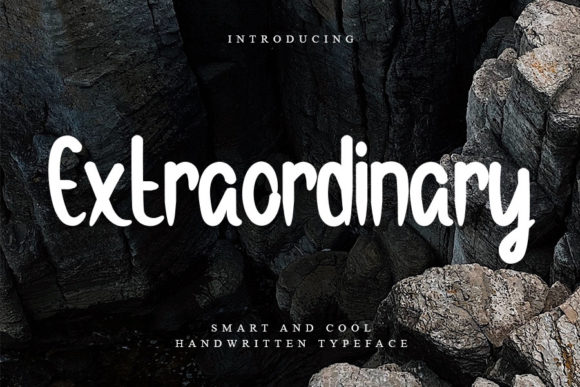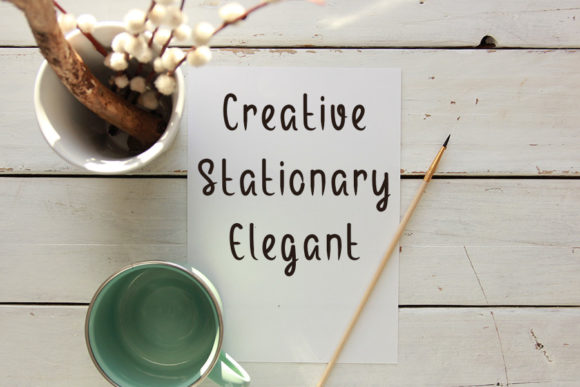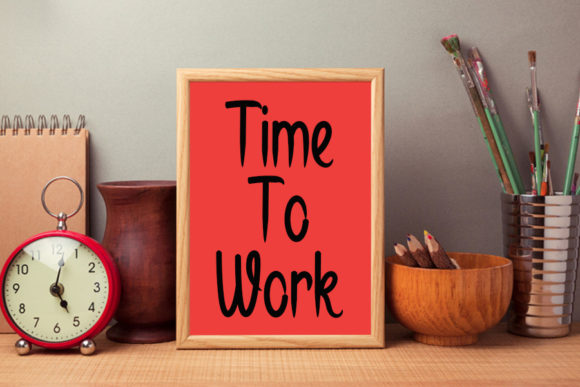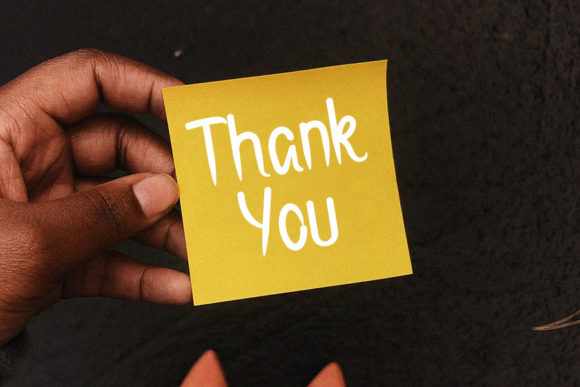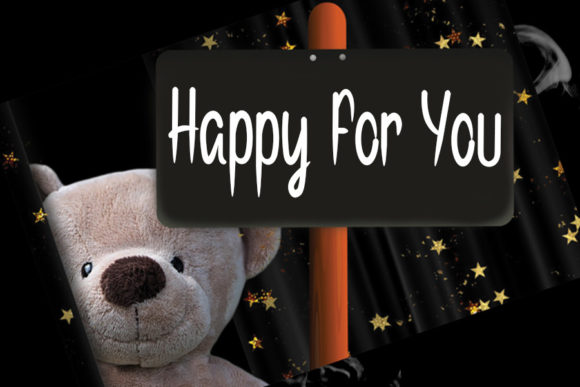
Extraordinary Font
About Extraordinary Font
Extraordinary is a cute and simple lettered handwritten font that can be used for all chalkboard quotes or teaching material! Its authentic look will add a personal and realistic feel to your designs.